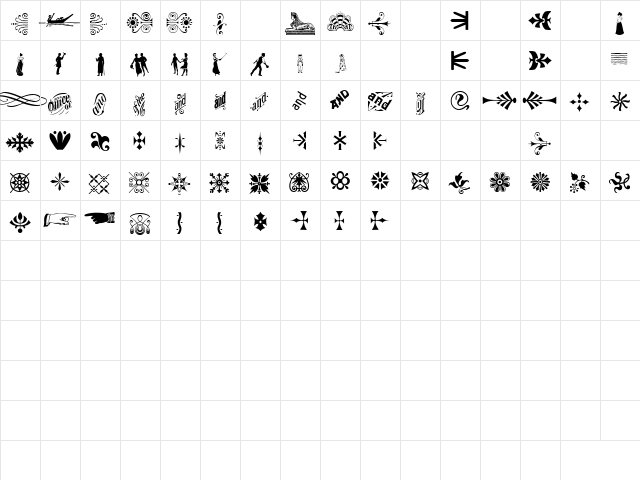
P22 Victorian Ornaments Two Ornaments Two
Design Context for P22 Victorian Ornaments Two Typeface
P22 Victorian Ornaments Two is built around its visual character rather than neutral utility — its distinctive forms are designed to make an impression at display sizes.
Font Pairing: Pair with a clean neutral sans-serif for body copy to let P22 Victorian Ornaments Two's character lead without overwhelming the composition.
Pro Tip: Treat P22 Victorian Ornaments Two as the centrepiece of your typographic hierarchy. One strong heading set in a decorative face can carry an entire layout.